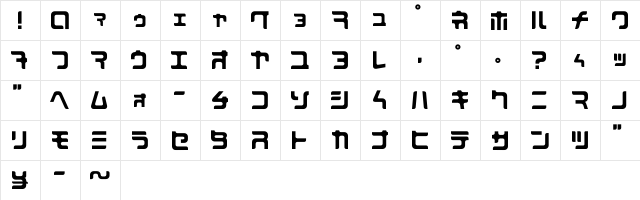
MarkingMarker KANA
Design Context for MarkingMarker Typeface
MarkingMarker is a composed and adaptable typeface that performs quietly and consistently across a wide range of design contexts.